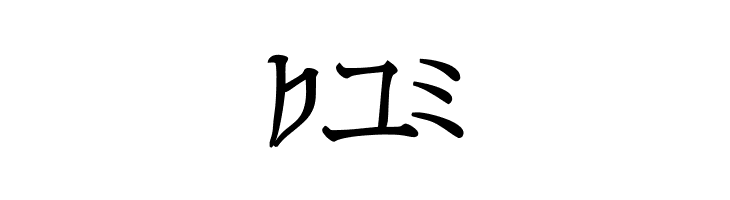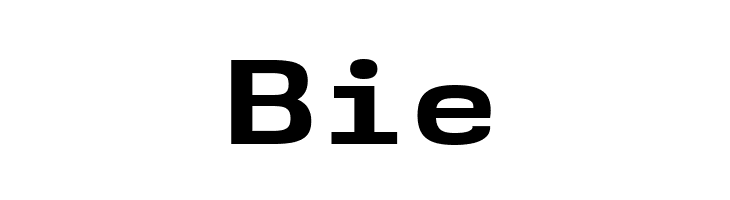
• Nippon Tech Bold
A bold, futuristic font with geometric shapes and sharp angles, perfect for tech themes.
• Nippon Tech Bold Italic
A bold, italicized font with a futuristic, tech-inspired design.
• Nippon Tech Condensed Bold
A bold, futuristic font with a condensed, geometric design.
• Nippon Tech Condensed Bold Italic
A futuristic, condensed, bold italic font with sharp, angular design.
• NipponLatin-Bold
A bold, angular font with geometric shapes and calligraphic influences.
• Niramit Bold
A bold, modern sans-serif font with rounded characters and a friendly appearance.
• Niramit Bold Italic
A bold, italic, and modern typeface with clean lines and moderate contrast.
• NK57MonospaceCdRg-Bold
( Fonts by Typodermic Fonts )
A bold, monospaced font with a clean and uniform appearance.
• NK57MonospaceCdRg-BoldItalic
( Fonts by Typodermic Fonts )
A bold, italicized monospaced font with a modern, dynamic style.
• NK57MonospaceExRg-Bold
( Fonts by Typodermic Fonts )
A bold, monospaced font with a modern, utilitarian design ideal for technical use.